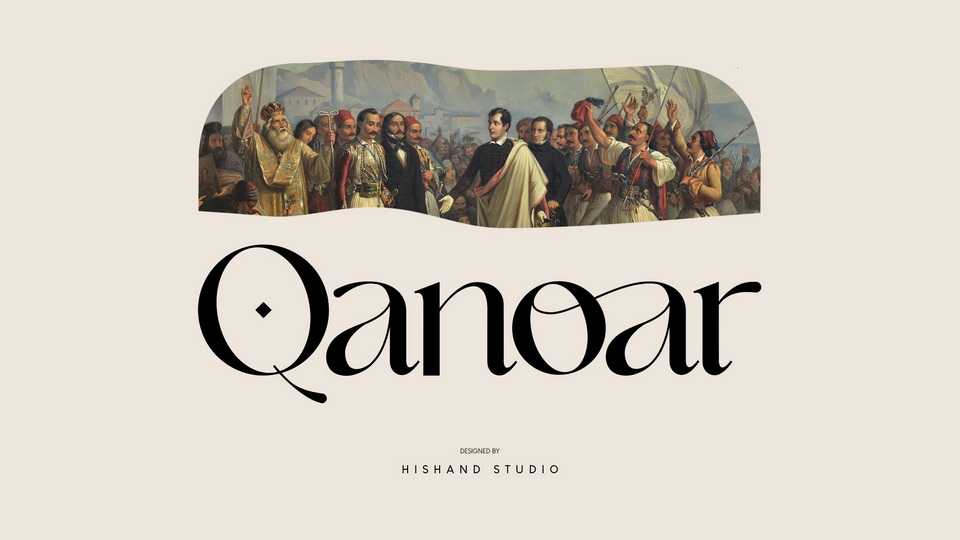
Download Qanoar font, a modern serif typeface that drawn inspiration from elegant, modern, but classic at the same time. Use Qanoar for logo, design, branding, and many more.